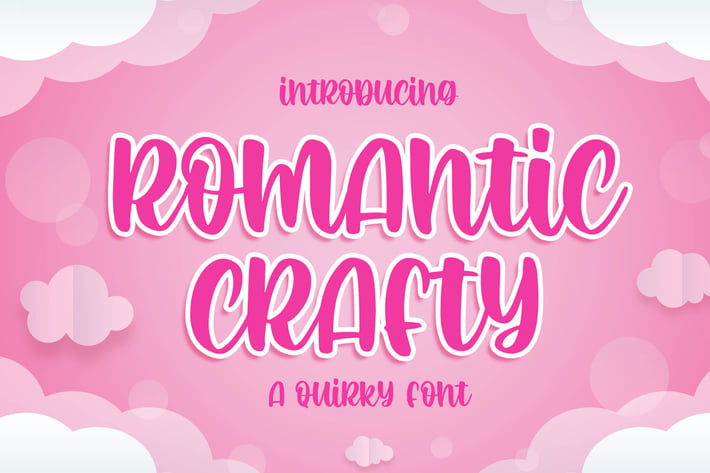
Romantic Crafty - a Quirky Font
Introducing of our new product the name is Romantic Crafty a Quirky Font. Romantic Crafty inspired by food them this font is a fun theme very good for display, valentine theme, wedding, logotype and etc